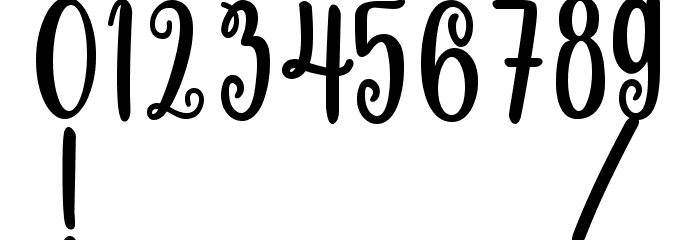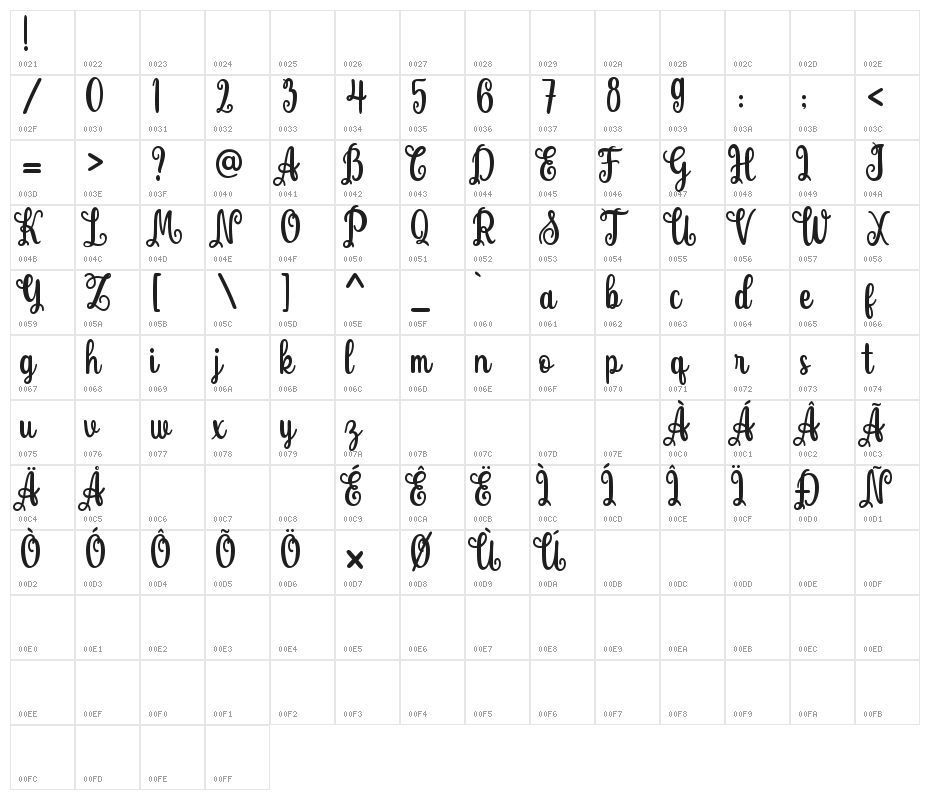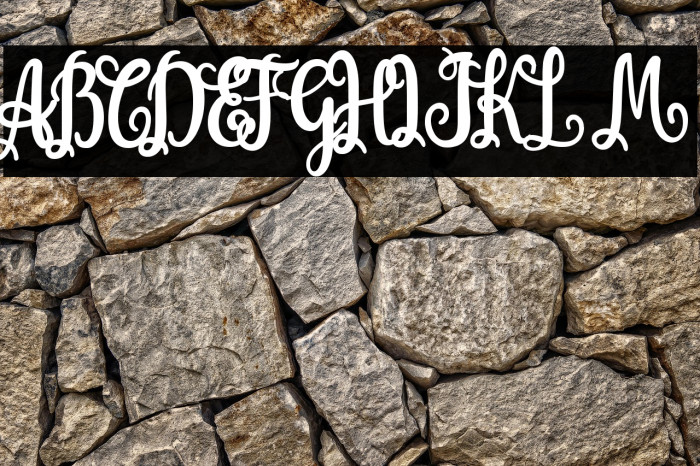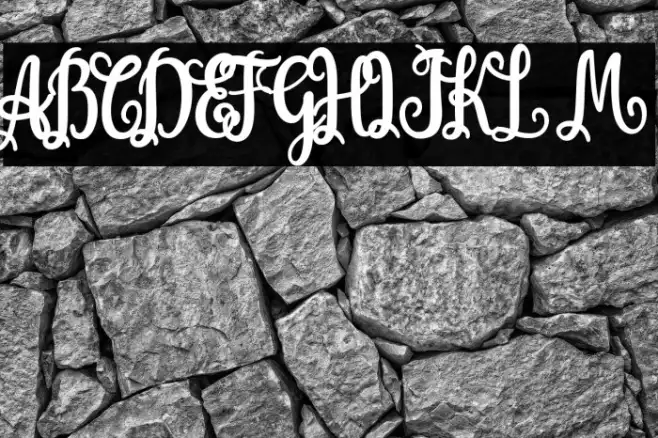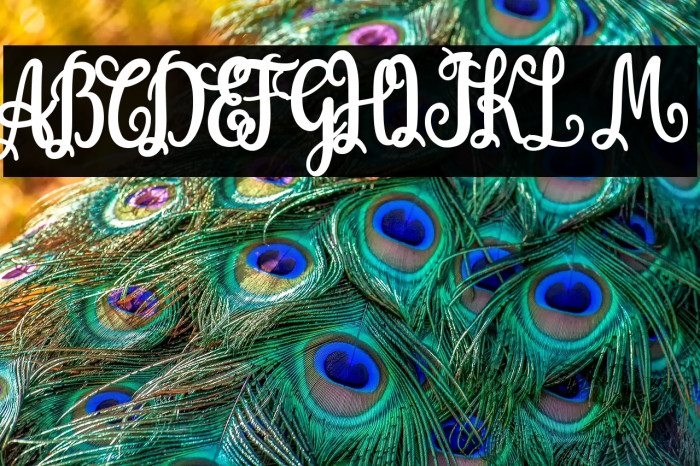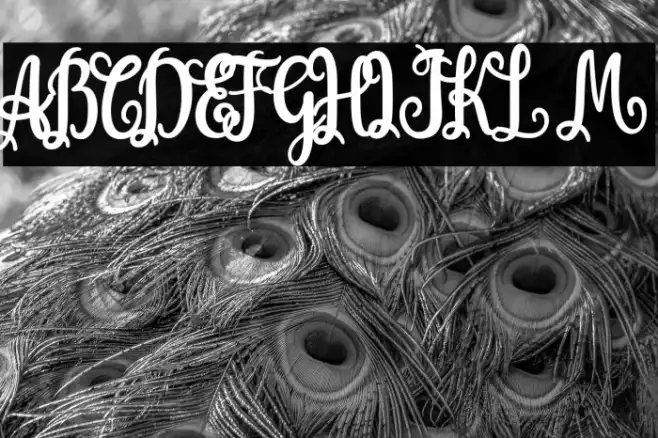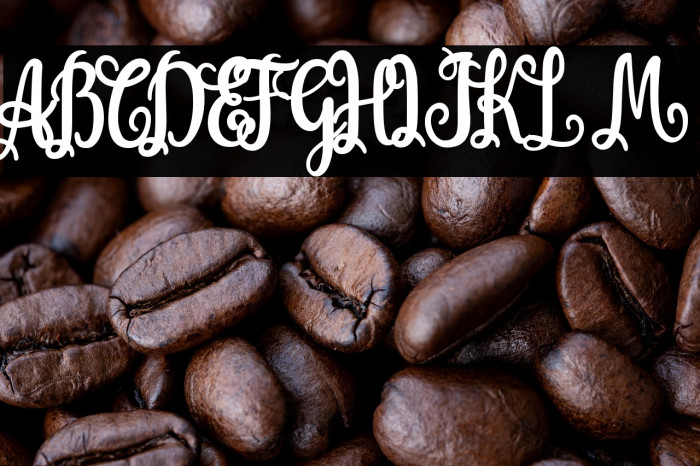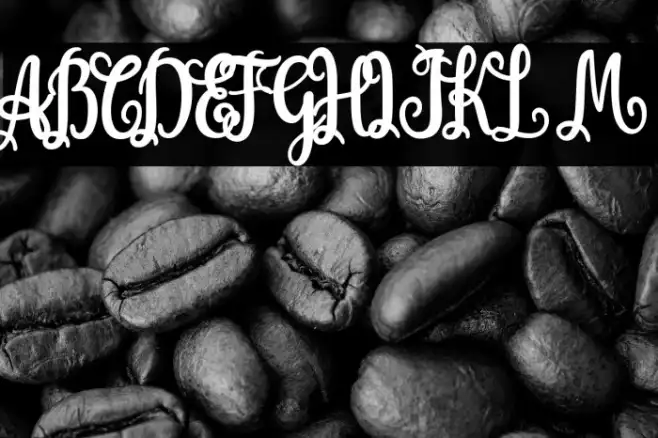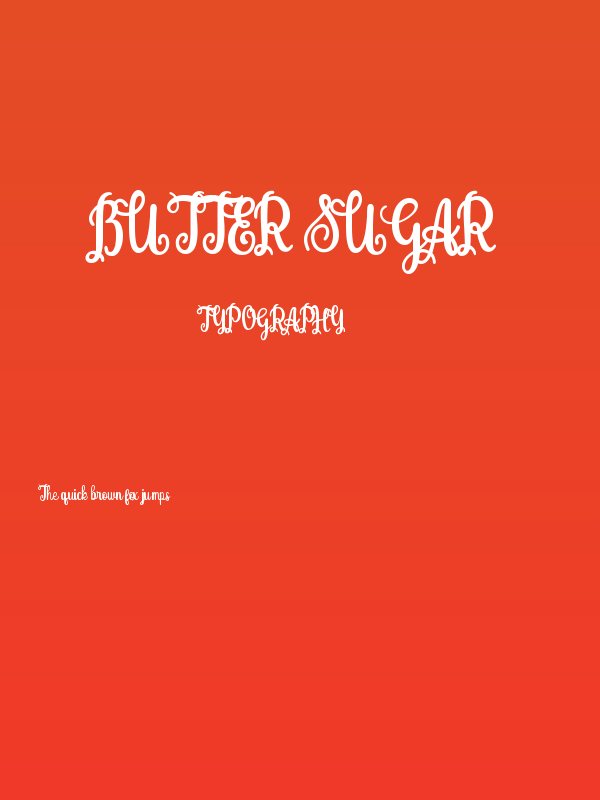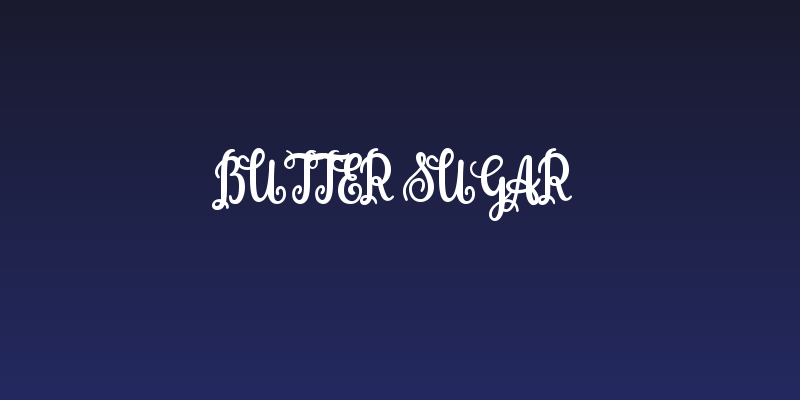
Butter Sugar Font
Butter Sugar Description
This font features a playful and whimsical style with elaborate curls and loops that give it a lively and dynamic appearance. The uppercase letters are particularly ornate, with each character adorned with unique flourishes that add a touch of elegance and charm. The lowercase letters maintain a consistent flow, complementing the uppercase with their rounded and smooth forms. The numbers and special characters are designed to match the overall aesthetic, ensuring a cohesive look across all text. This font's bold strokes and intricate details make it stand out, perfect for projects that require a touch of creativity and flair.
| Proposed Projects | Ideal for invitations, greeting cards, playful branding, and decorative posters. |